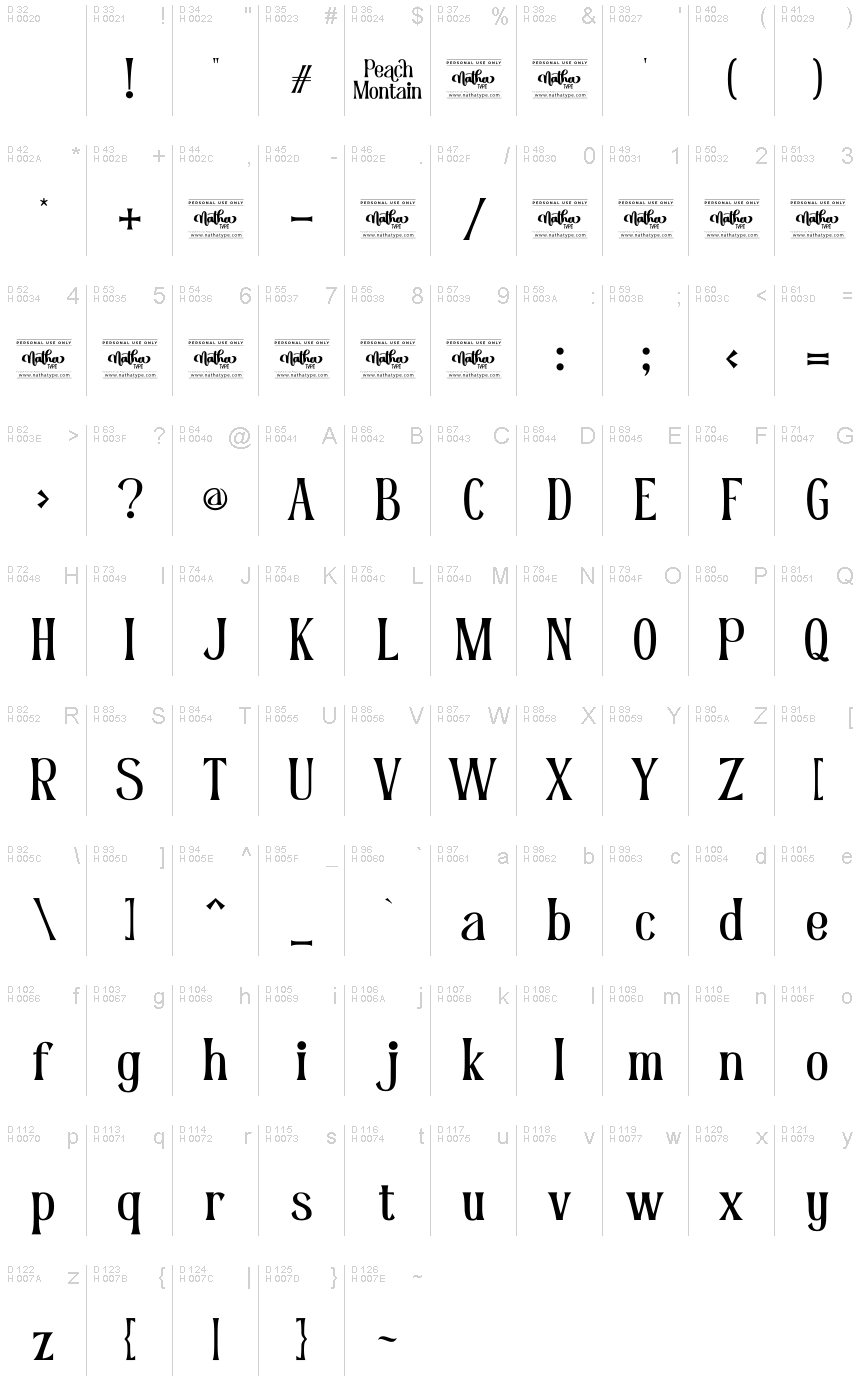
Peach Montain font, crafted by Nathatype, exudes a captivating vintage charm that instantly draws the eye. Its distinctive condensed form gives it a unique elegance, gracefully blending classic serif features with modern sophistication. The bold, yet refined strokes create an immediate impact, while the delicate curves lend a touch of warmth and nostalgia.
This font’s aesthetic appeal makes it suitable for various design contexts—from upscale branding and invitations to editorial layouts and signage. Its striking presence ensures that it stands out without overwhelming other elements, making Peach Montain an exquisite choice for any project that seeks to convey both style and substance. Whether used for headlines or decorative text, this font captures attention with its timeless allure, inviting creativity in every application.